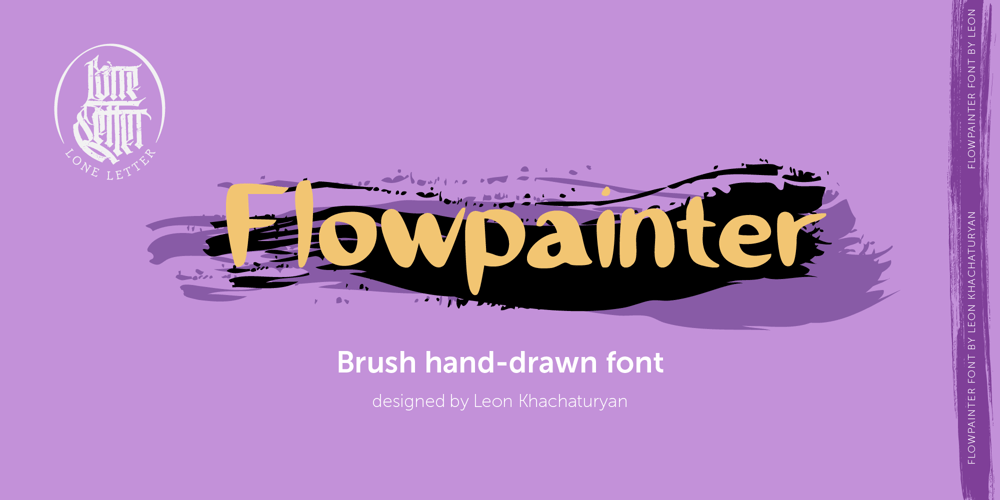
Flowpainter LLT Font Family was designed by published by Lone Letter. Flowpainter LLT contains 2 styles and family package options. Flowpainter LLT is a vibrant brush font that will elevate your designs to the next level. It is more than just a stylish typeface, giving your text a unique twist. Drawn in lowercase, Flowpainter LLT has also evolved in an all-caps design to include a full set, numbers, and punctuation for complete versatility. With Flowpainter LLT, your designs will shine with personality and flair, it shines in printed materials as well, making it perfect for food labels, accessories, tote bags, pins, logos, wedding invitations, watermarks, and more.